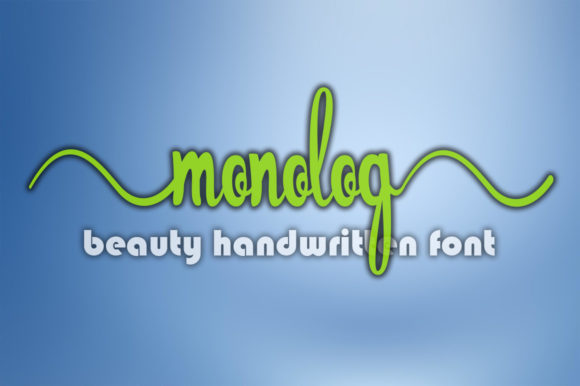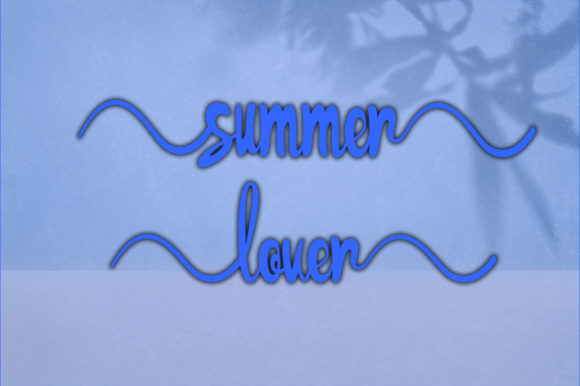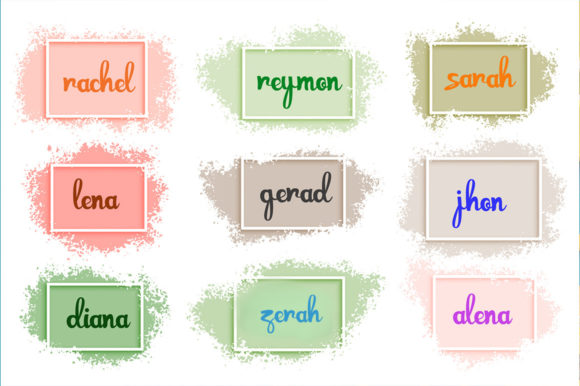
Monolog Font
About Monolog Font
Monolog is a romantic and sweet calligraphy typeface with characters that dance along the baseline. This font is PUA encoded which means you can access all glyphs and swashes with ease!